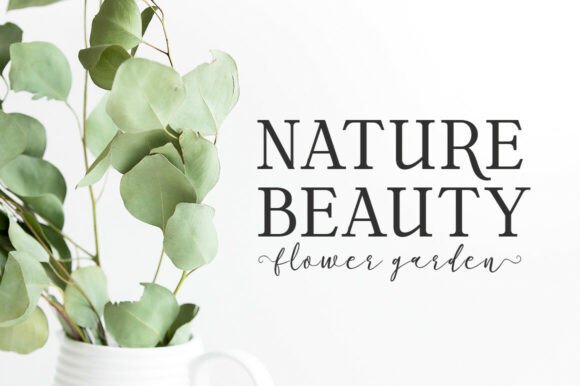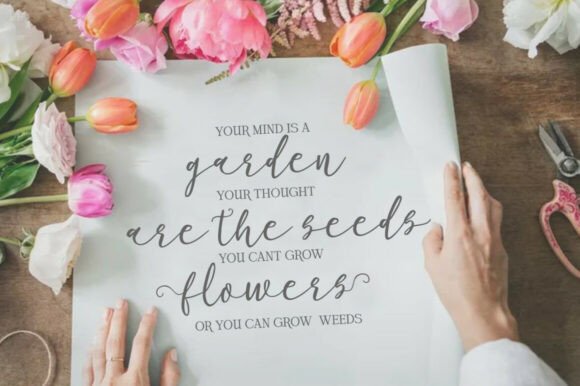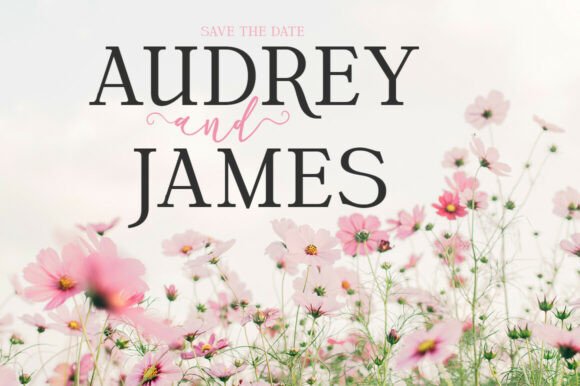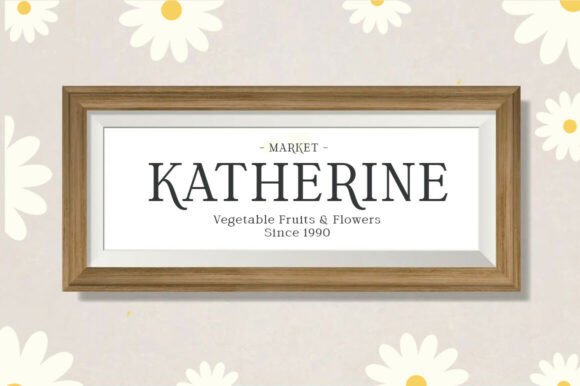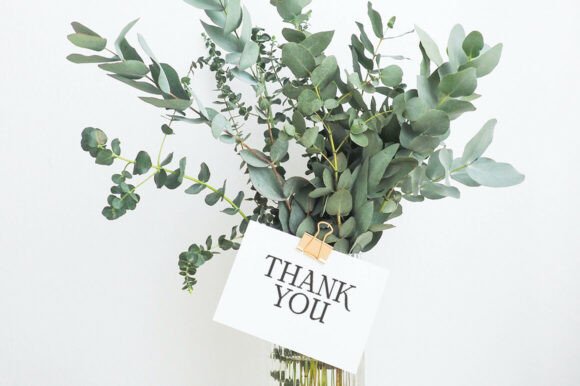
Introducing the Farmhouse Daisy Font: A Charming Combination of Elegance and Whimsy
Are you a designer or crafter looking for a font that captures the essence of a cozy, homely, and inviting atmosphere? Look no further than the Farmhouse Daisy Font. This beautiful pairing of a bold, elegant serif and a flowing, handcrafted script typeface is perfect for creating designs that evoke a sense of rustic refinement and warmth.
A Perfect Balance of Sophistication and Warmth
The Farmhouse Daisy Font combines the best of both worlds, bringing together the stability and tradition of a serif font with the personal, whimsical touch of a handwritten script. The serif style conveys a sense of reliability and heritage, while the handwritten script adds a playful, artistic flair. This balance makes it an ideal choice for a wide range of design projects, from branding and invitations to signage and farmhouse-inspired decor.
Key Features of the Farmhouse Daisy Font
- PUA Encoding: The Farmhouse Daisy Font is PUA encoded, making it easy to access all glyphs, swashes, and alternate characters. This means you can effortlessly add a personal touch to your designs and make them truly unique.
- Bold, Elegant Serif: The serif font in the Farmhouse Daisy pairing is bold and elegant, providing a solid foundation for your designs. Its classic style ensures that your work will stand the test of time.
- Flowing, Handcrafted Script: The handwritten script in the Farmhouse Daisy Font is flowing and organic, adding a touch of whimsy to your designs. Its handcrafted feel makes it perfect for creating personalized and bespoke designs.
- Wide Range of Uses: The Farmhouse Daisy Font is versatile and can be used for a variety of design projects, including branding, invitations, signage, and farmhouse-inspired decor.
Why Choose the Farmhouse Daisy Font?
There are many fonts available to designers and crafters, but the Farmhouse Daisy Font stands out for its unique combination of elegance and whimsy. Here are just a few reasons why you might choose this font for your next project:
- Unique Aesthetic: The Farmhouse Daisy Font has a distinctive, rustic yet refined aesthetic that is hard to find in other fonts. Its combination of serif and script styles creates a look that is both cozy and sophisticated.
- Easy to Use: The Farmhouse Daisy Font is PUA encoded, making it easy to access all the glyphs, swashes, and alternate characters you need to create beautiful designs.
- High-Quality Design: The Farmhouse Daisy Font is designed to high standards, ensuring that it will look great in any design project. Its bold, elegant serif and flowing script styles are perfect for creating professional-looking work.
Using the Farmhouse Daisy Font in Your Designs
The Farmhouse Daisy Font is a versatile design tool that can be used in a wide range of projects. Here are a few ideas to get you started:
- Branding: Use the Farmhouse Daisy Font to create a unique and memorable brand identity. Its combination of elegance and whimsy makes it perfect for businesses that want to stand out from the crowd.
- Invitations: The Farmhouse Daisy Font is ideal for creating beautiful, personalized invitations for weddings, parties, and other special occasions.
- Signage: Use the Farmhouse Daisy Font to create eye-catching signage for your business or home. Its bold, elegant style ensures that your message will be noticed.
- Farmhouse-Inspired Decor: The Farmhouse Daisy Font is perfect for creating farmhouse-inspired decor projects, such as wall art, signs, and other home decor items.
| Author | Youngtype |
The Farmhouse Daisy Font is a charming and versatile design tool that is perfect for designers and crafters who want to create beautiful, unique designs. Its combination of a bold, elegant serif and a flowing, handcrafted script typeface makes it ideal for a wide range of projects, from branding and invitations to signage and farmhouse-inspired decor. With its PUA encoding and high-quality design, the Farmhouse Daisy Font is a great choice for anyone looking to add a touch of elegance and whimsy to their work.